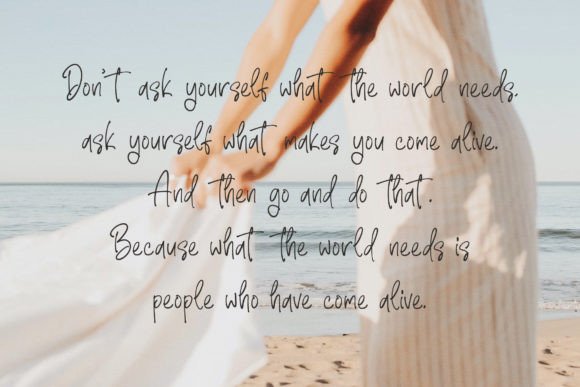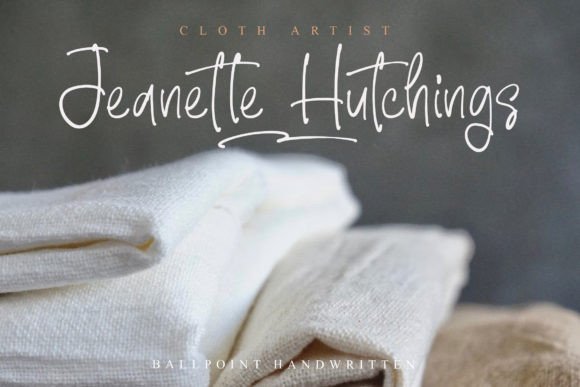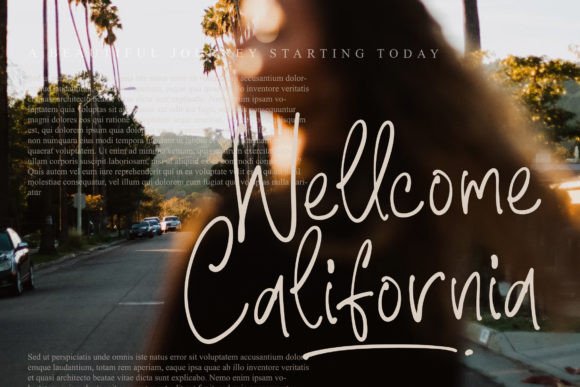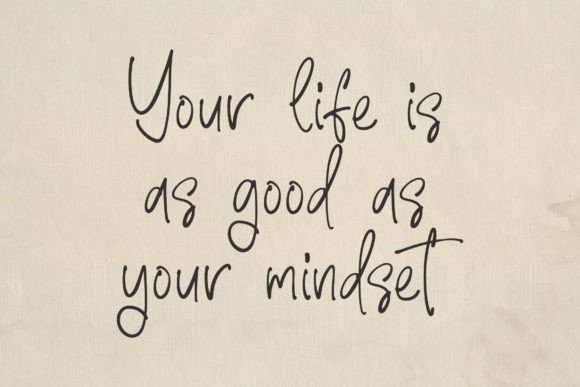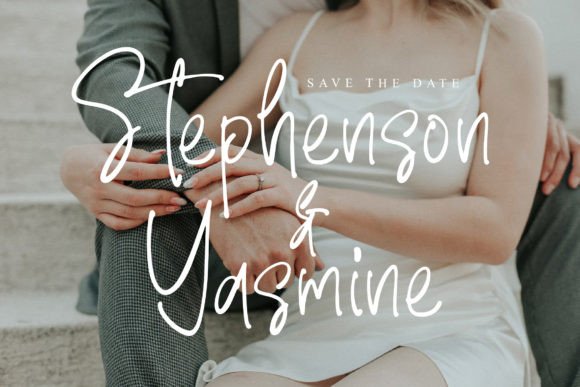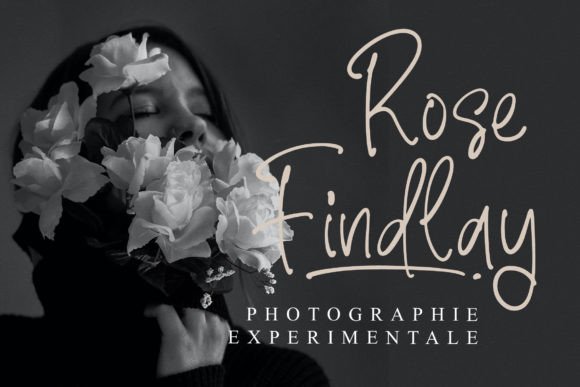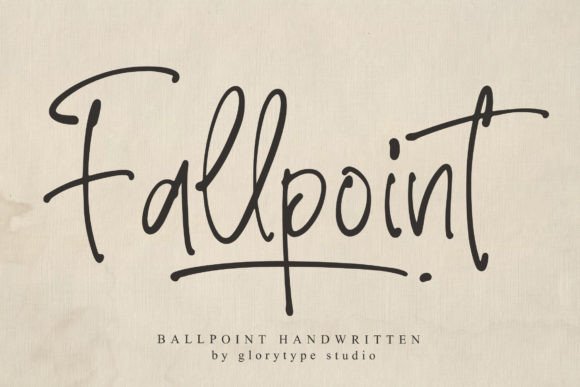
Introducing Fallpoint Font: The Perfect Handwritten Script for Your Creative Projects
Are you a designer or crafter looking for a beautiful and versatile handwritten font to elevate your creative projects? Look no further than Fallpoint Font, a stunning ballpoint script that’s perfect for a wide range of applications. From logos and branding to homeware designs, product packaging, and more, Fallpoint Font is the ideal choice for anyone seeking a unique and stylish script.
What is Fallpoint Font?
Fallpoint Font is a carefully crafted ballpoint handwritten font that’s designed to bring a touch of elegance and sophistication to your projects. With its smooth, flowing lines and subtle imperfections, this font exudes a sense of warmth and personality that’s sure to capture the attention of your audience.
What Can I Use Fallpoint Font For?
The versatility of Fallpoint Font is one of its standout features. This amazing font can be used for a wide range of projects, including:
- Logos and branding projects: Create a lasting impression with a custom logo that showcases your brand’s personality and style.
- Homeware designs: Add a touch of elegance to your home decor with Fallpoint Font, perfect for designing wall art, throw pillows, and more.
- Product packaging: Stand out on store shelves with beautifully designed packaging that features Fallpoint Font.
- Mugs and ceramics: Create unique and personalized gifts with Fallpoint Font, perfect for coffee mugs, plates, and more.
- Quotes and posters: Inspire and motivate with beautifully designed quotes and posters that showcase Fallpoint Font.
- Shopping bags and t-shirts: Create eye-catching merchandise that features Fallpoint Font, perfect for businesses, events, or personal use.
- Book covers and name cards: Add a touch of sophistication to your book covers and name cards with Fallpoint Font.
- Invitation cards and greeting cards: Create beautiful and personalized invitations and greeting cards that feature Fallpoint Font.
- Labels and photography: Use Fallpoint Font to add a touch of elegance to your labels and photography projects.
- Watermark and special events: Create custom watermarks and event materials that showcase Fallpoint Font.
Why Choose Fallpoint Font?
So why choose Fallpoint Font for your creative projects? Here are just a few reasons:
- Unique and stylish script: Fallpoint Font offers a unique and stylish script that’s sure to elevate your projects.
- Versatile and adaptable: This font is perfect for a wide range of projects, from logos and branding to homeware designs and more.
- High-quality design: This font is carefully crafted to ensure a high-quality design that’s consistent throughout.
Tips for Using Fallpoint Font
To get the most out of Fallpoint Font, here are a few tips:
- Experiment with different sizes and colors: Fallpoint Font looks great in a variety of sizes and colors, so don’t be afraid to experiment and find the perfect combination for your project.
- Pair with other fonts: Fallpoint Font pairs well with other fonts, so try combining it with a bold font for headings or a clean font for body text.
- Use for display text: Fallpoint Font is perfect for display text, such as titles, headings, and quotes.
Fallpoint Font is a beautiful and versatile handwritten script that’s perfect for designers and crafters looking to elevate their creative projects. With its smooth, flowing lines and subtle imperfections, this font exudes a sense of warmth and personality that’s sure to capture the attention of your audience. Whether you’re working on a logo, branding project, homeware design, or more, Fallpoint Font is the ideal choice.